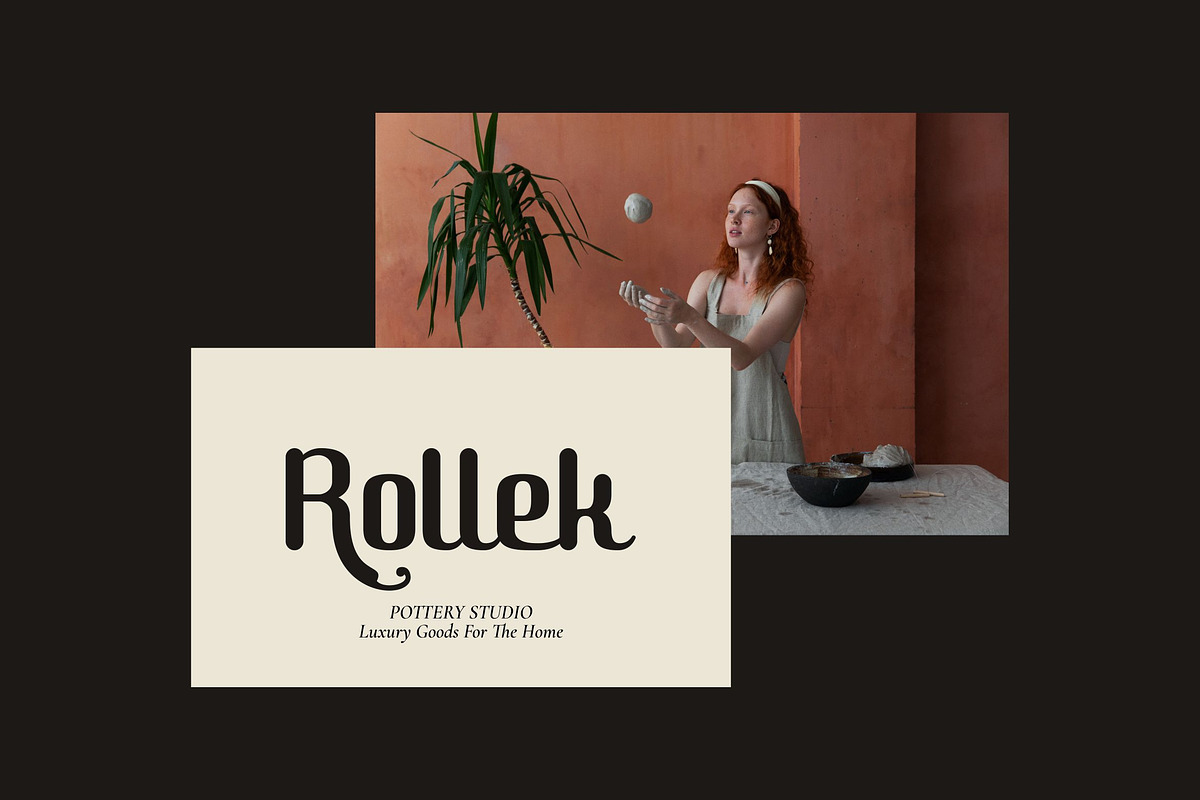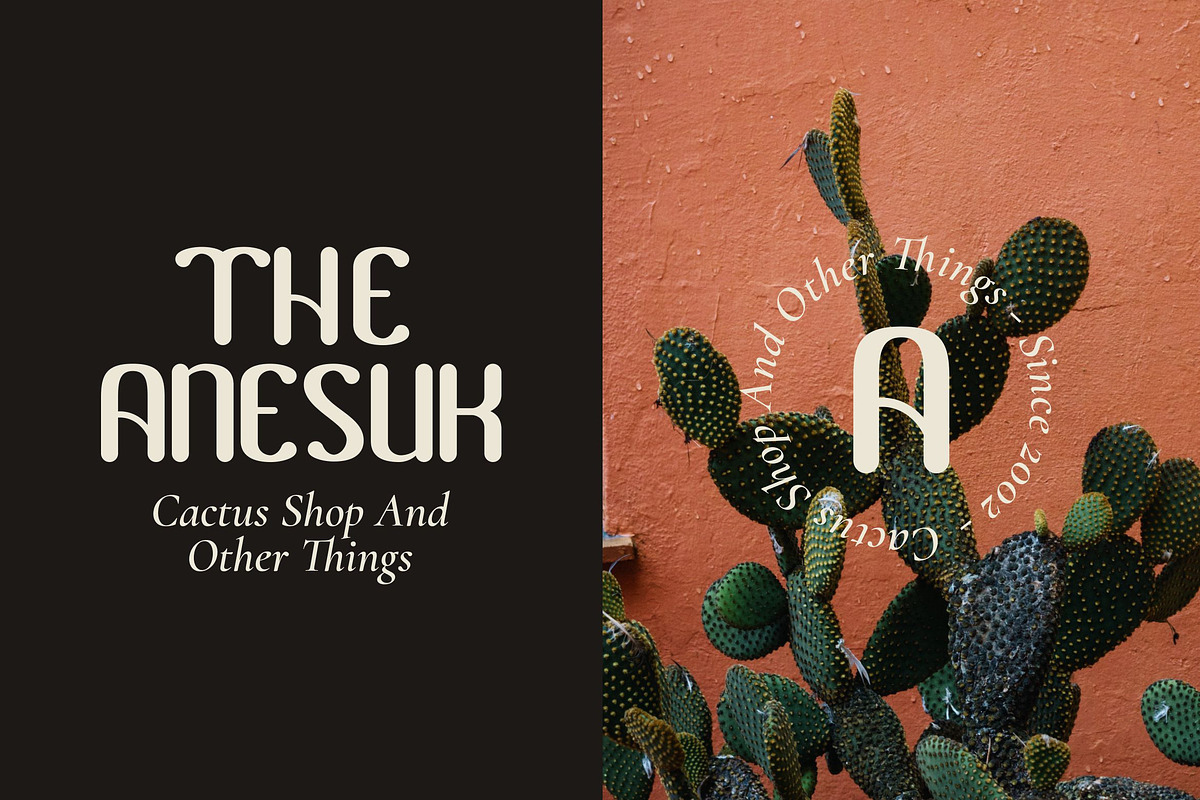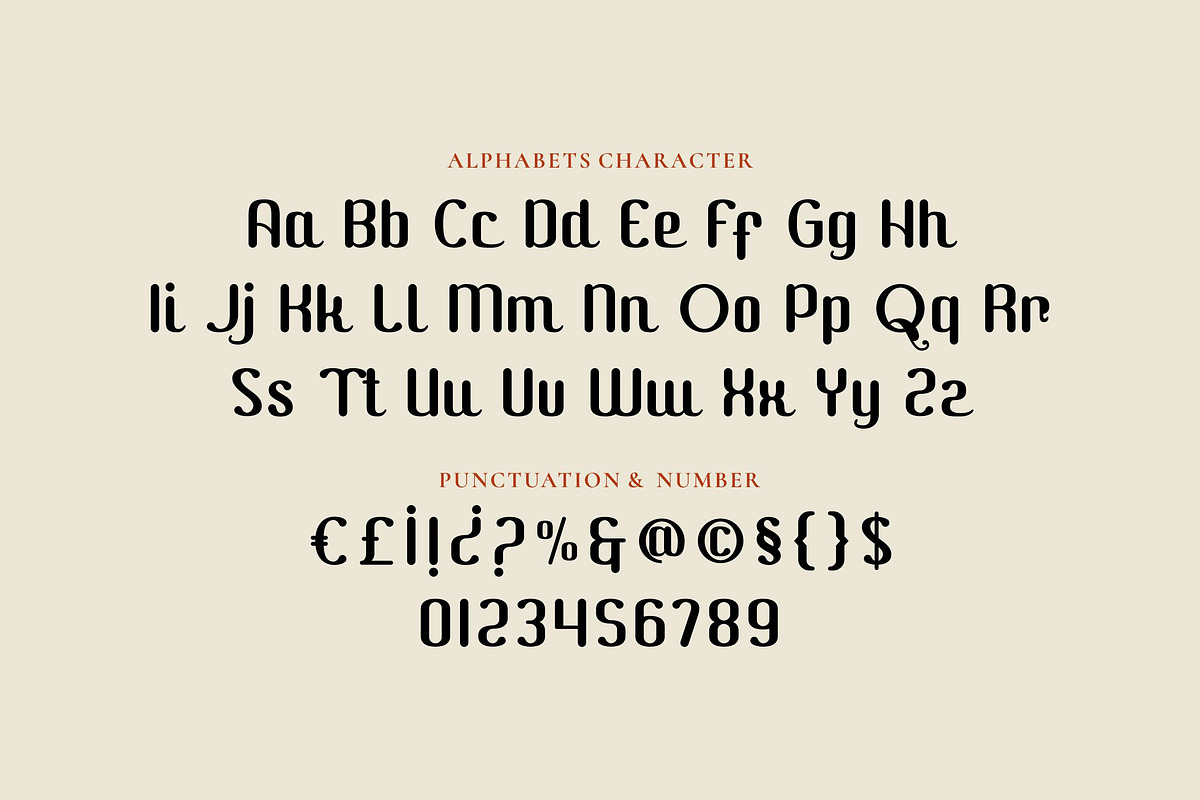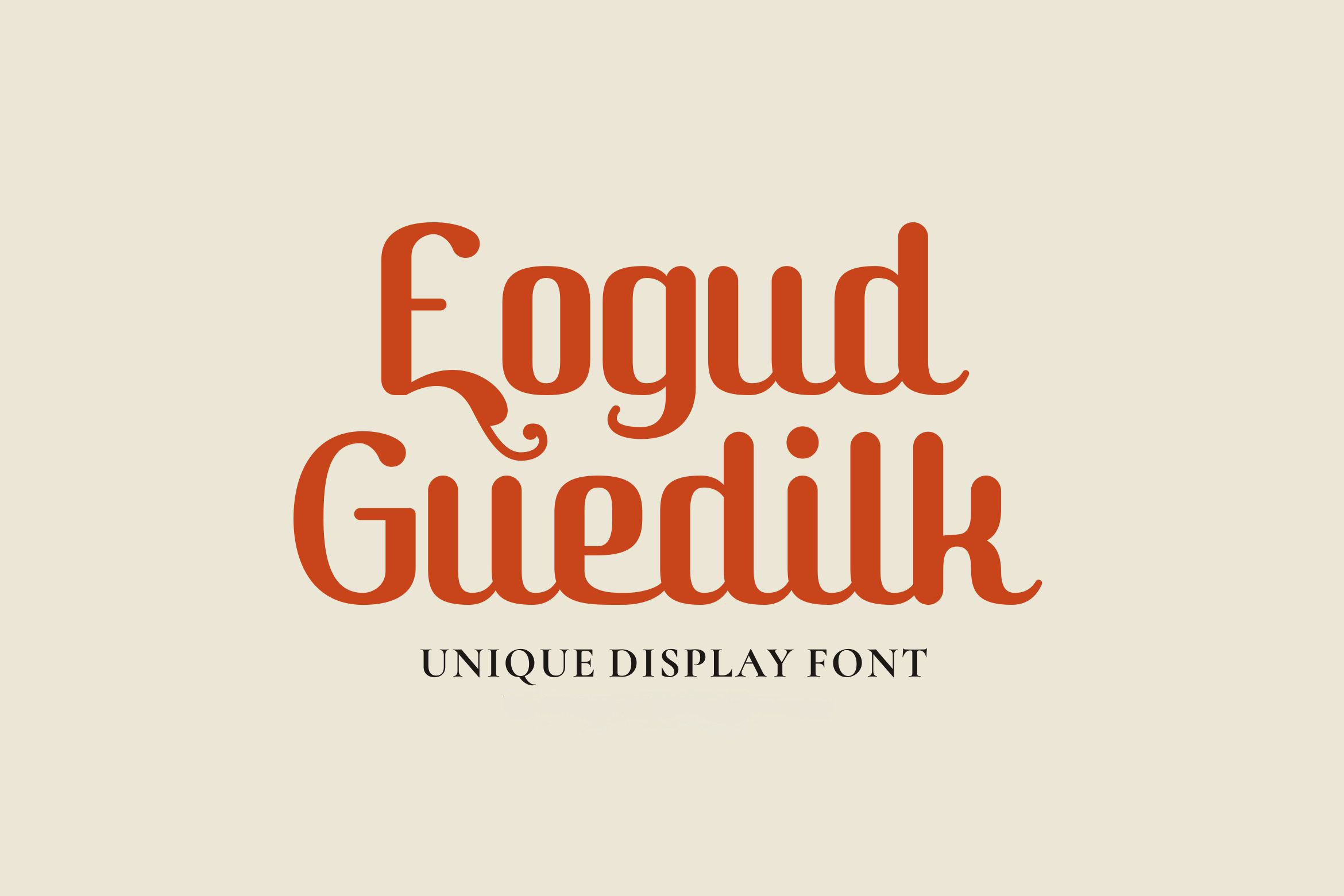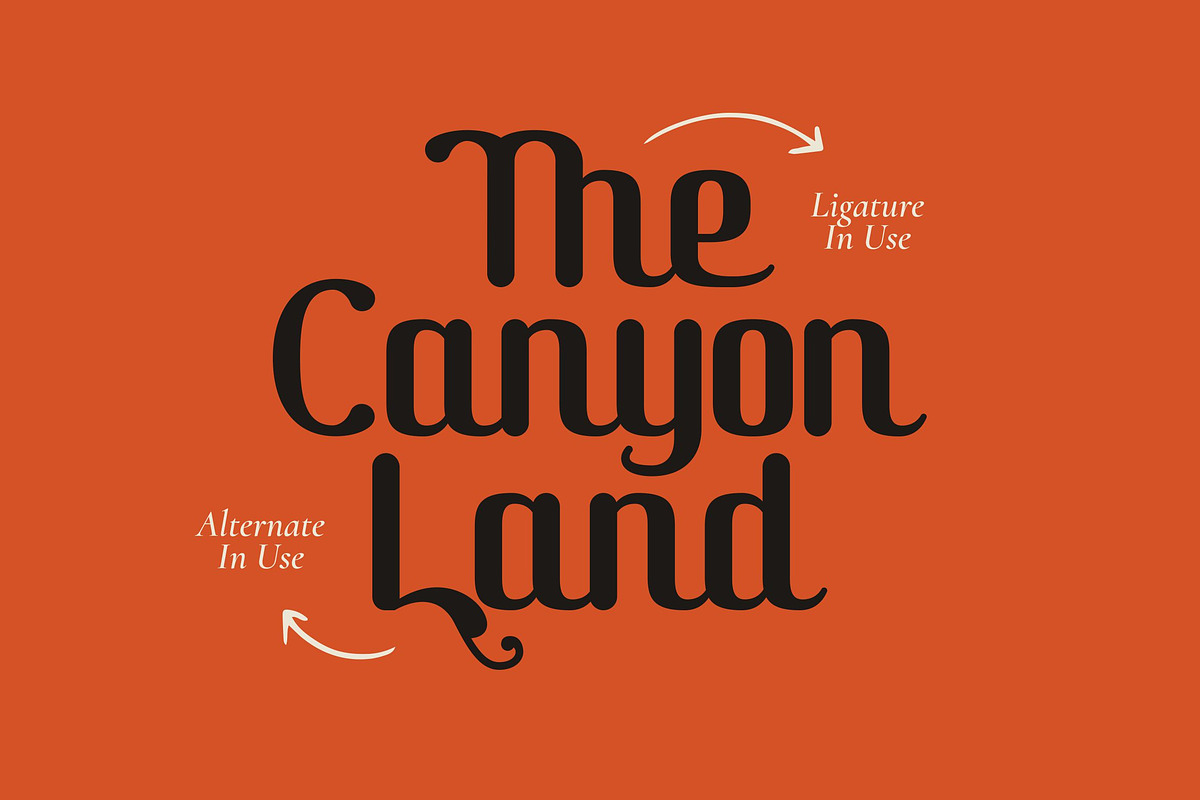
Eogud Guedilk - Retro Script Font
Step back in time and infuse your designs with a dose of nostalgic charm with Eogud Guedilk, a bold and groovy display font. Drawing inspiration from the free spirited aesthetics of the 70s and the elegant curves of Art Nouveau, this typeface is designed to make a statement.
Eogud Guedilk is defined by its unique letterforms, which feature graceful curves, flowing lines, and curved terminals and ornamental swashes, which visually echo the flowing, organic rhythm of Southeast Asian scripts like Javanese. This unique inspiration gives each character a confident yet friendly personality, blending playful charm with sophisticated elegance
Eogud Guedilk ideal for a wide range of applications, including branding projects, logo design, eye-catching headlines, magazine layouts, poster design, social media graphics, packaging, and invitations. Its distinctive style is perfect for brands in the pottery, fashion, artisanal goods, cactus shops, or any business looking for a unique, warm, and memorable aesthetic.
- Uppercase and Lowecase Characters.
- Numerals and Punctuations.
- Alternates and Ligatures.
- Multilingual Support.